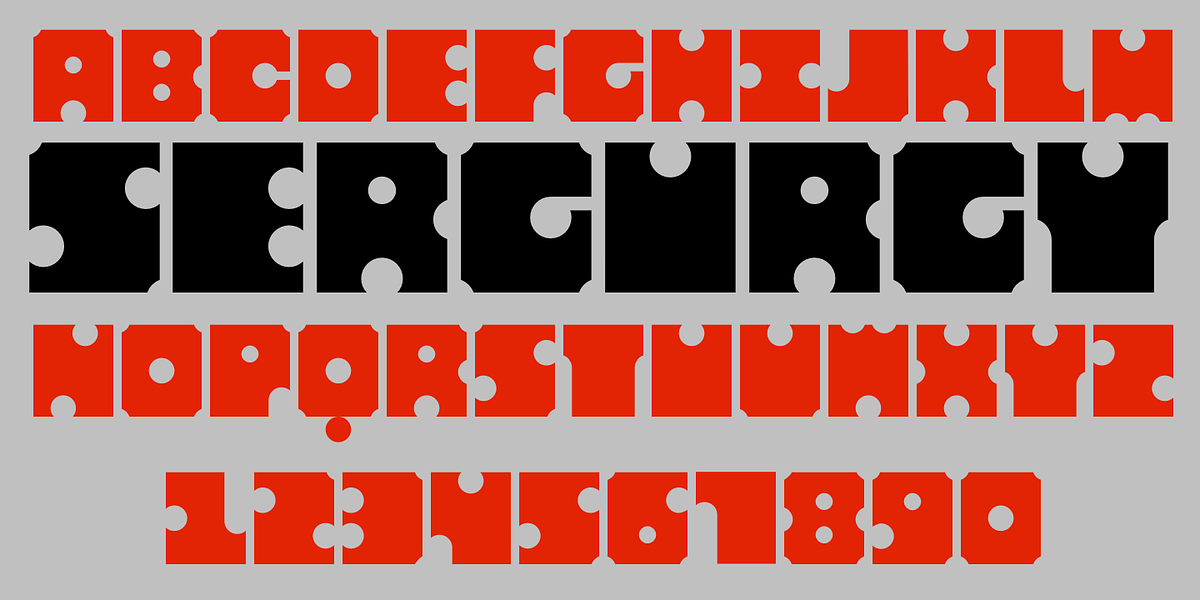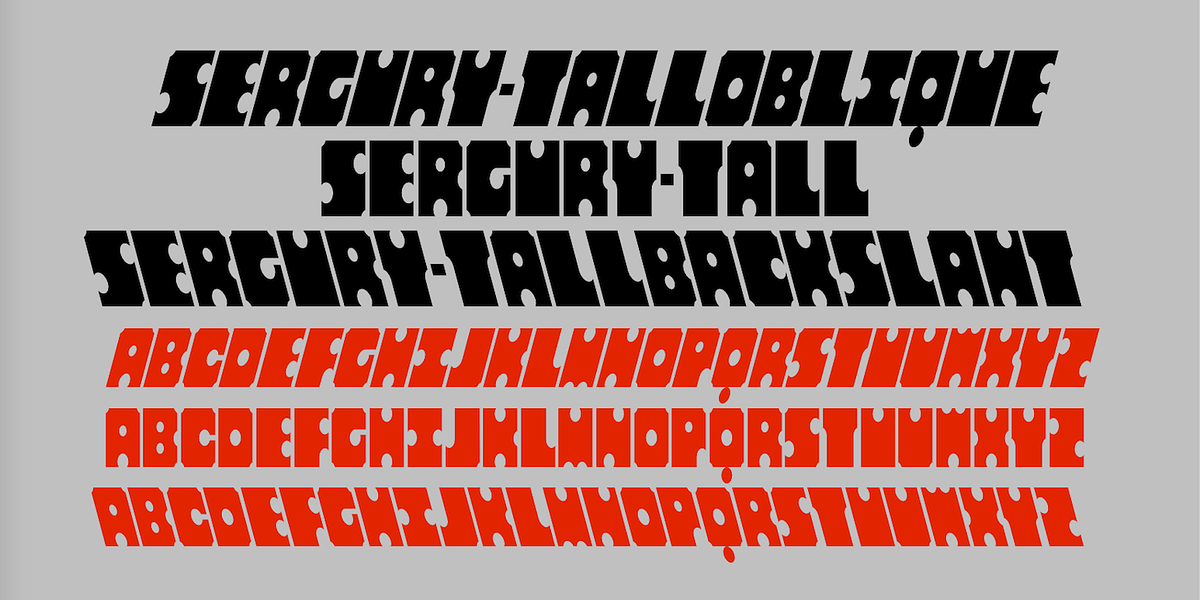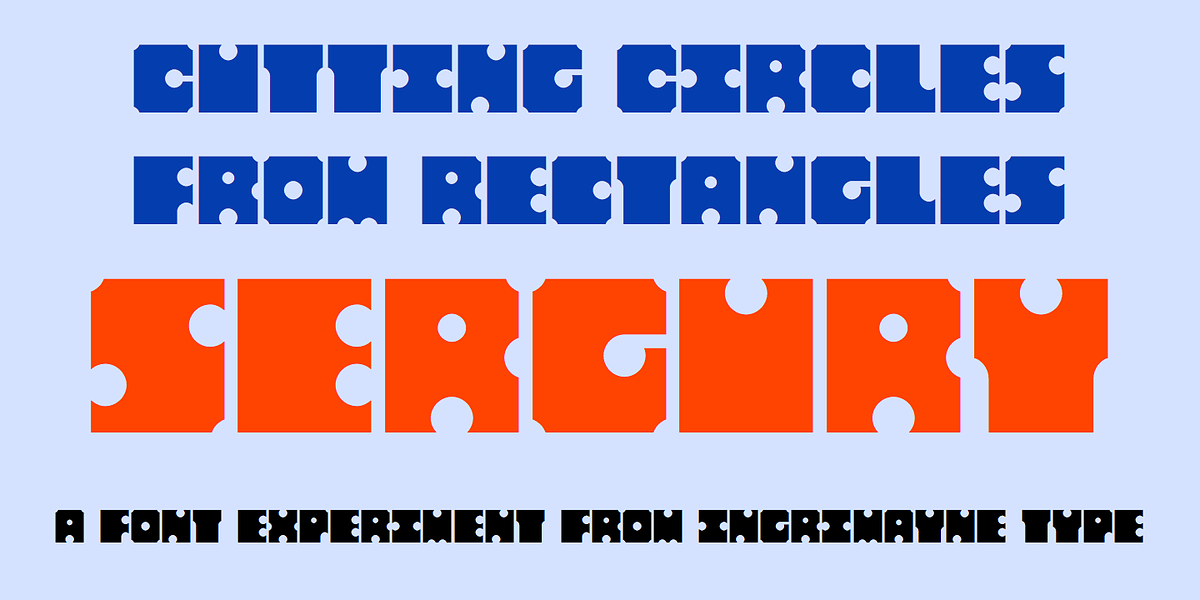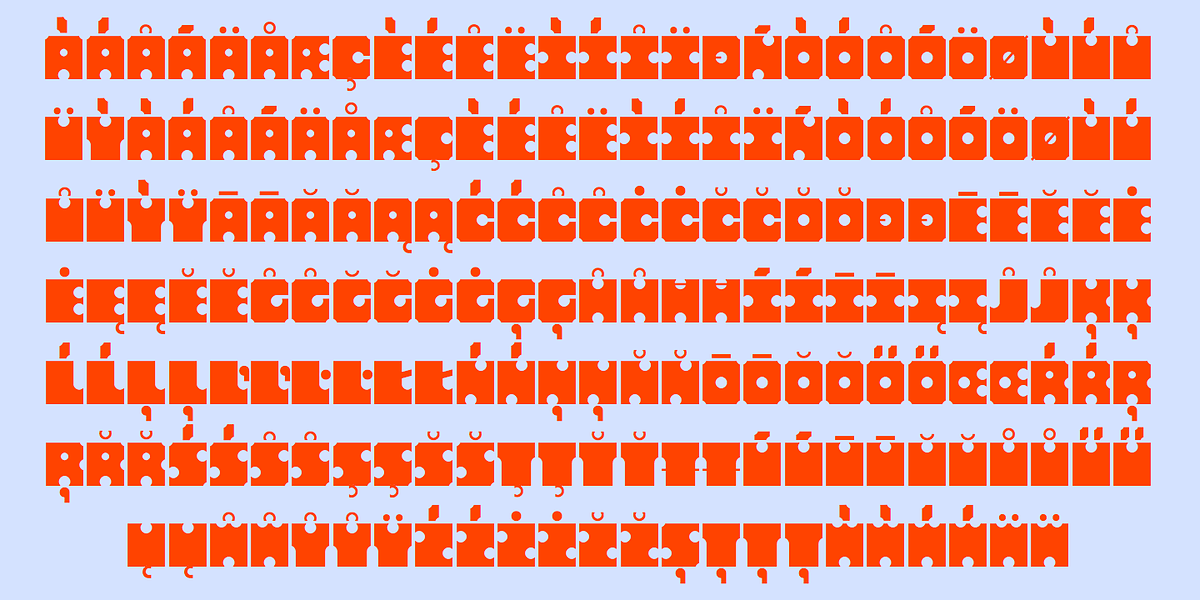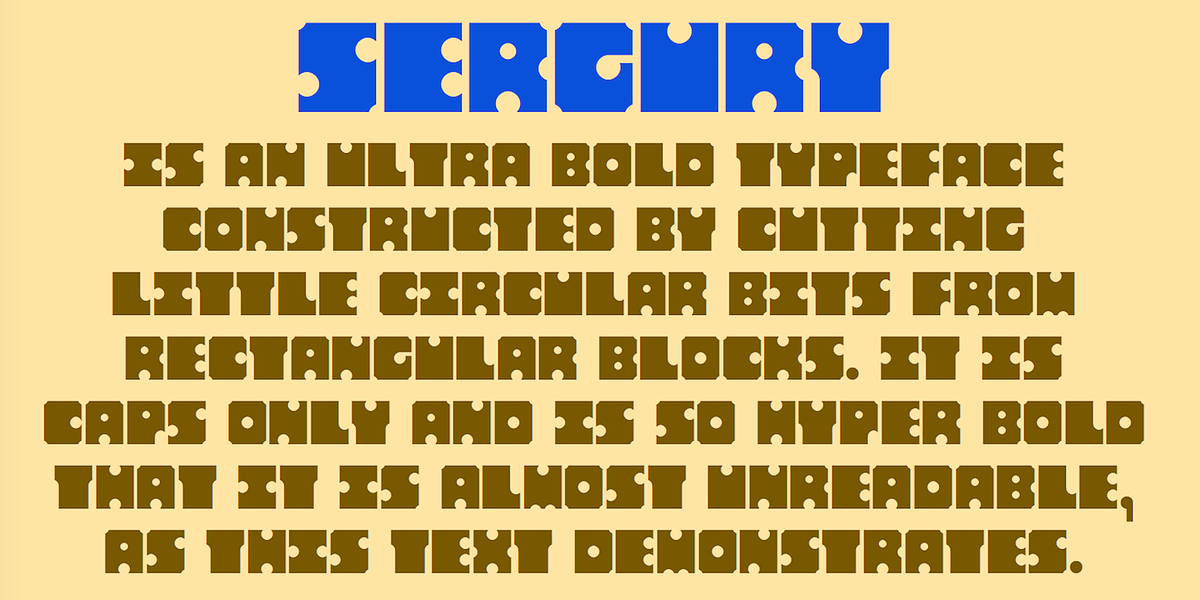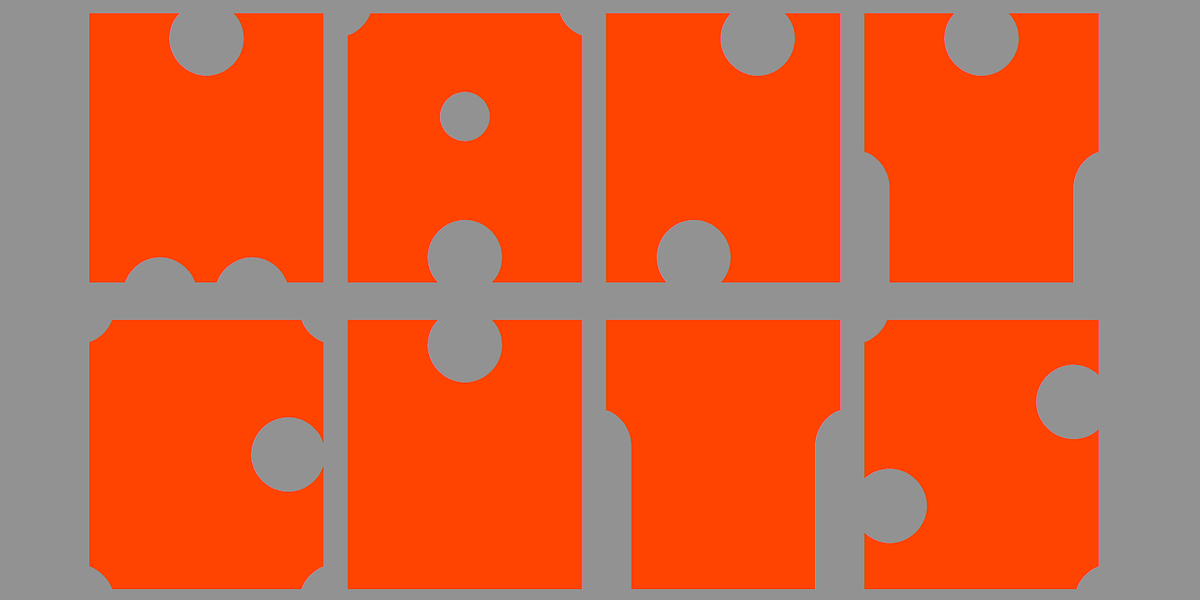
Sergury
Sergury is an experimental, ultra-bold typeface characterized by its geometric shapes. The font uses circular elements cut from rectangular blocks to create its unique letterforms. It is exclusively uppercase and designed for display purposes due to its extreme boldness. Sergury's aesthetic evokes a pixelated quality, making it suitable for eye-catching headlines and graphic designs.